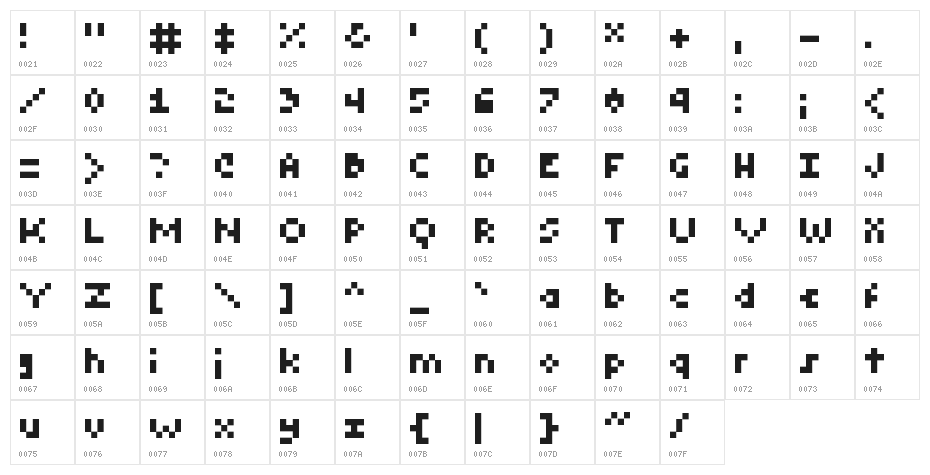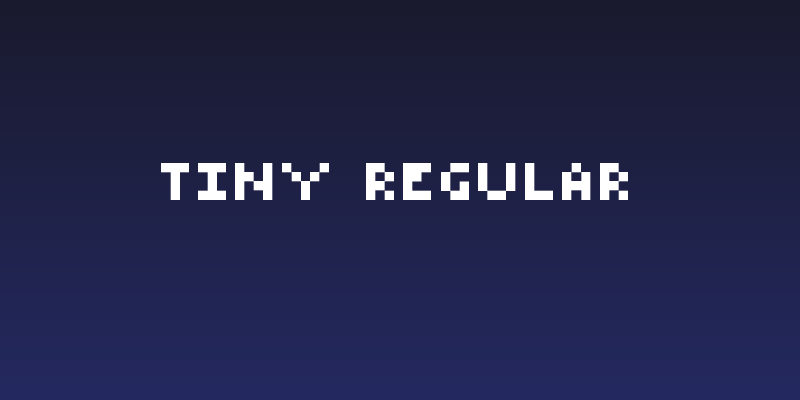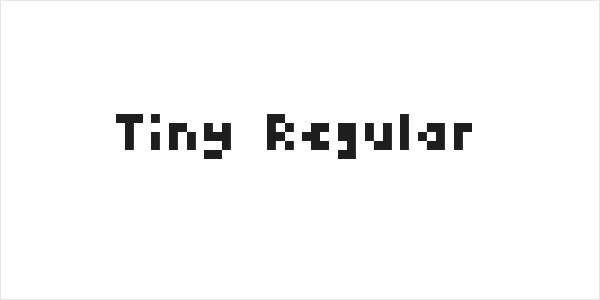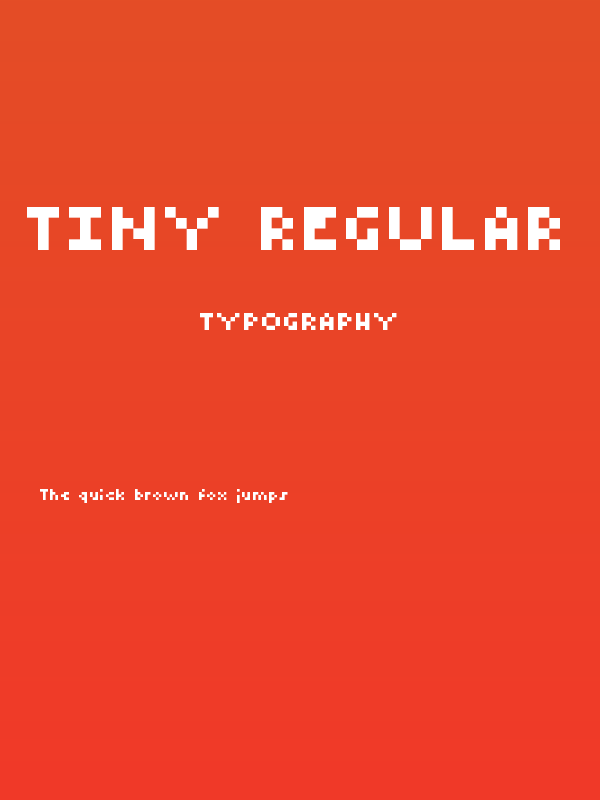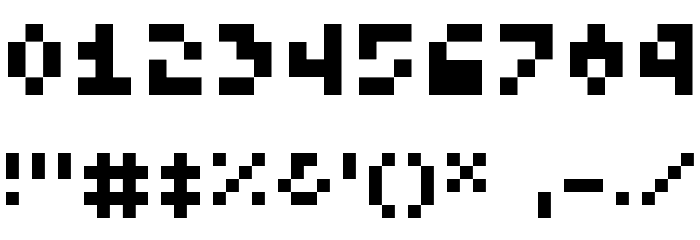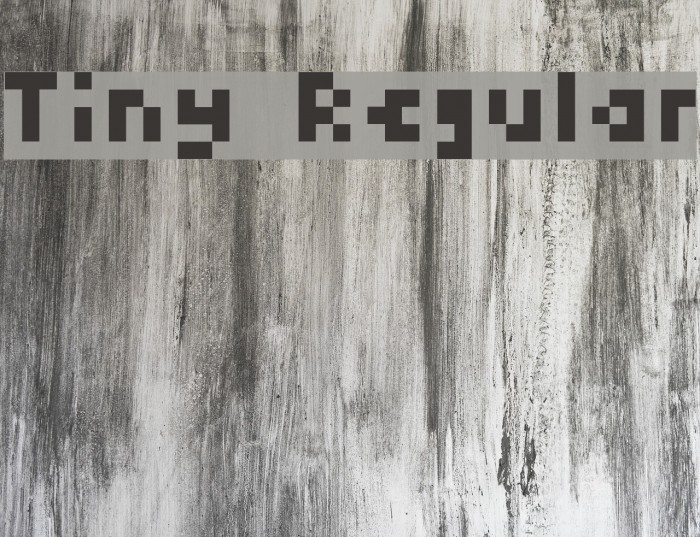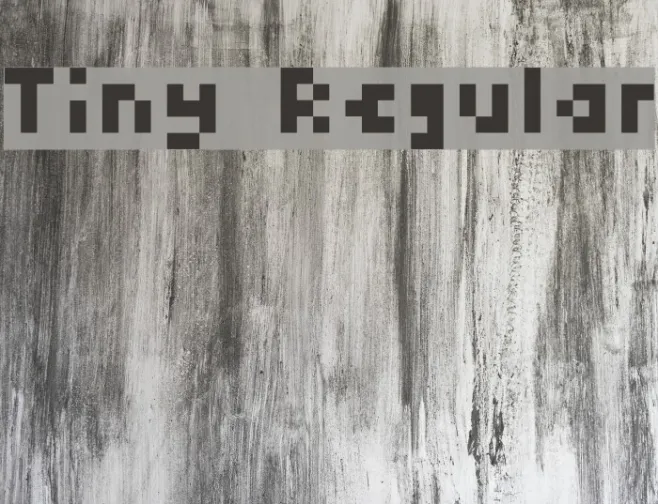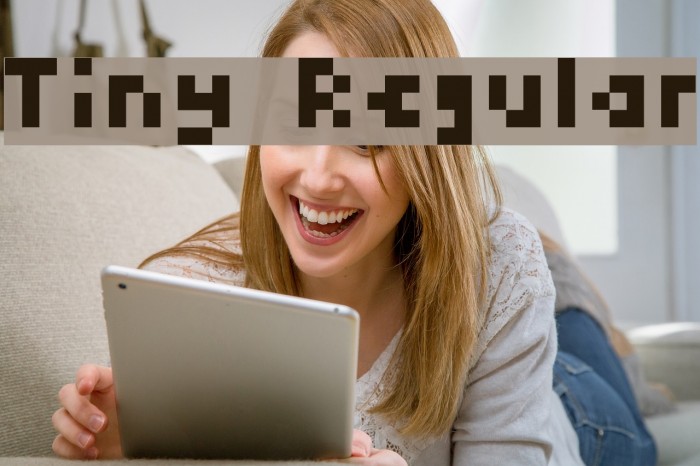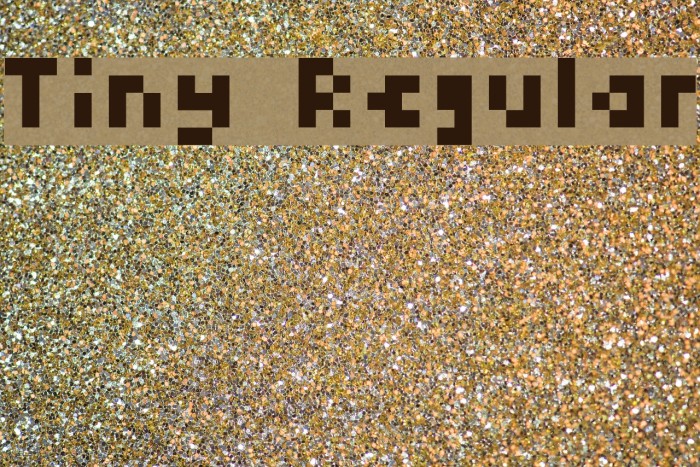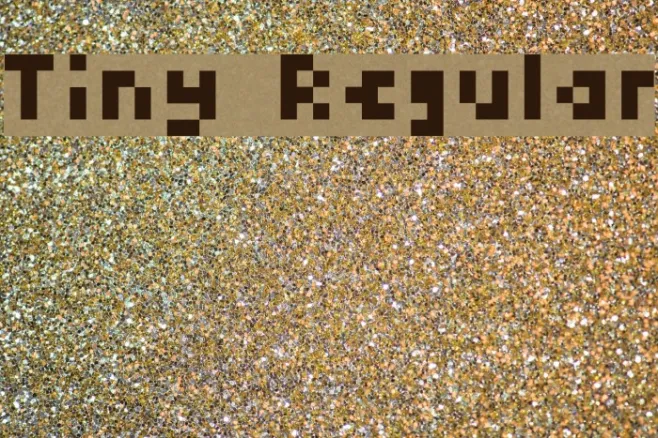
Tiny Regular Font
Tiny Regular Description
This font features a pixelated, blocky design reminiscent of early digital displays and retro video games. Each character is constructed with a uniform grid-like structure, giving it a distinctly digital and geometric appearance. The uppercase and lowercase letters maintain a consistent height, contributing to a cohesive visual flow. Numbers and special characters follow the same pixelated style, ensuring uniformity across all glyphs. The font's simplicity and clarity make it highly legible, even at smaller sizes, while its nostalgic aesthetic evokes a sense of vintage computing.
| Overall Style | Vintage |
| Use Case | Logos, Headlines, Digital Art |
| Proposed Projects | Ideal for retro video game designs, digital art projects, tech-themed posters, and any creative work that seeks to evoke a sense of nostalgia for early computing. |